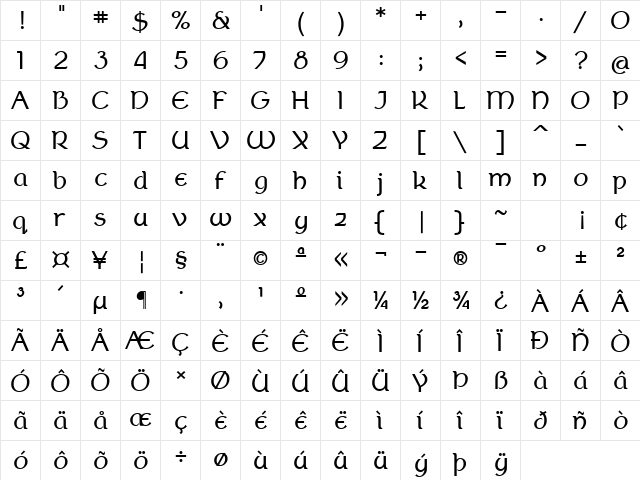
Berenika Book
Design Context for Berenika Typeface
Berenika takes a measured approach to typography — its balanced proportions and neutral character make it a reliable workhorse for both digital and print work.
Pro Tip: Pair Berenika with a font of contrasting weight or personality to build a more expressive typographic hierarchy.